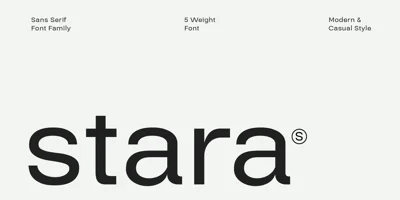
Stara Font
Stara Font is ideal for luxury branding, fashion magazines, elegant wedding invitations, high-end product packaging, sophisticated logos, premium website headers, and upscale restaurant menus. This refined typeface elevates any design project with its contemporary elegance and professional appeal.
What makes Stara Font exciting is its perfect balance between modern sophistication and timeless elegance. The font features clean geometric lines, carefully crafted letterforms, and subtle design details that create a premium visual experience. Its versatile character makes it suitable for both display and body text applications, while maintaining exceptional legibility across all sizes and mediums.
The Stara Font family includes comprehensive weight variations ranging from light to black, along with matching italic styles for each weight. The family offers extended character sets with multilingual support, professional ligatures, alternate characters, and advanced OpenType features. Additional stylistic sets provide designers with creative flexibility for unique typographic solutions.
Whether you're developing luxury brand identities, creating editorial layouts, or designing premium marketing materials, Stara Font delivers outstanding performance and visual impact. This versatile typeface combines contemporary design trends with classic typography principles, ensuring your projects maintain a sophisticated and professional appearance that resonates with discerning audiences and establishes strong brand recognition.